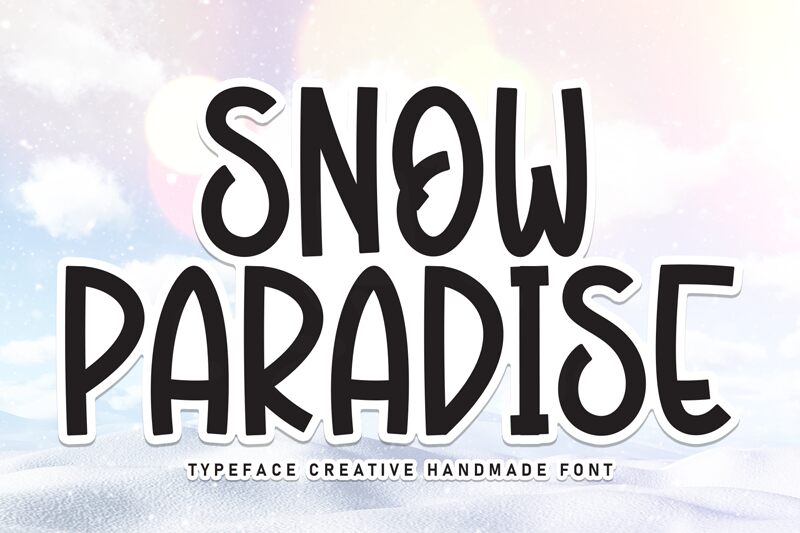
Snow Paradise
Snow Paradise font by Scratchones is a condensed display font with an organic feel, casual design, and slightly whimsical appearance. Despite its modern aesthetic, it carries a friendly mood that appeals to readers. This free display font is perfect for capturing attention in designs.
Use this font in your branding projects for businesses or products related to nature. Use it to design quirky apparel labels and tags or seasonal product packaging, signs, posters, magazine covers, typography art prints, books or music album covers. Include it in logo designs and handwritten invitations as well as stationery designs and business cards.